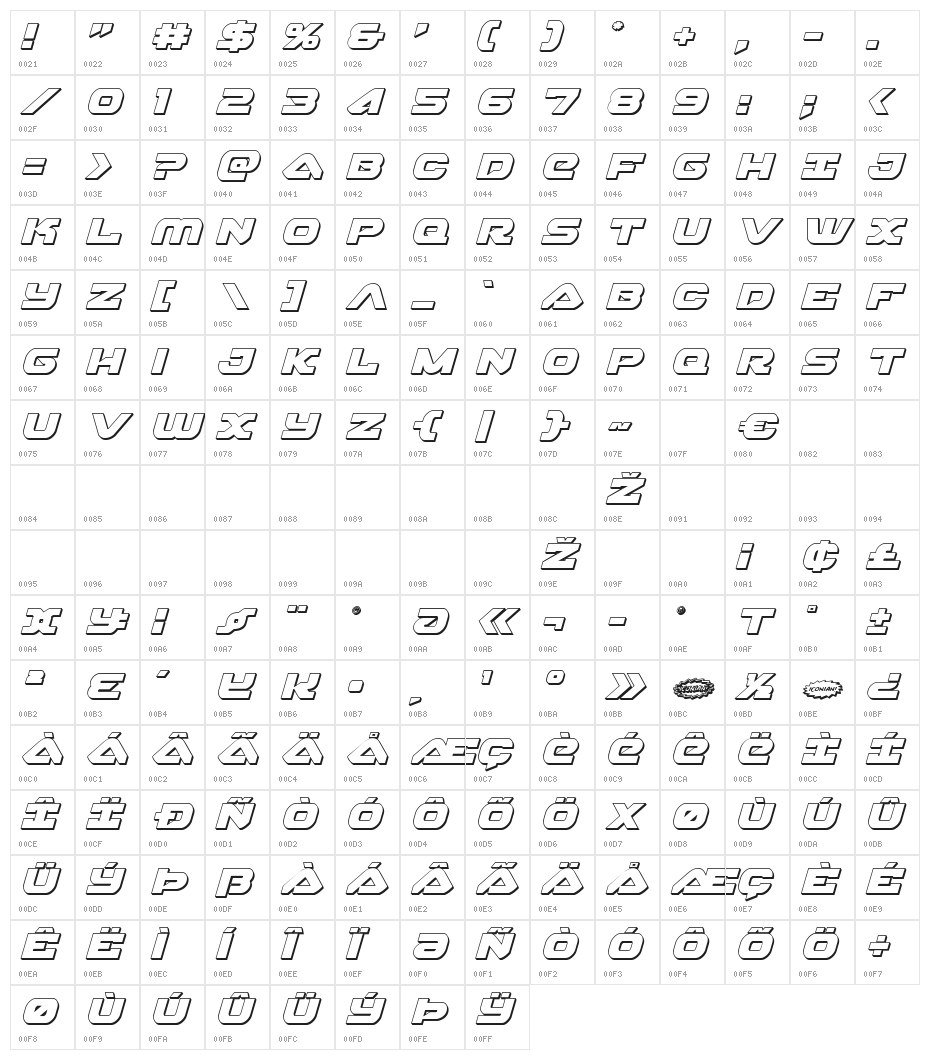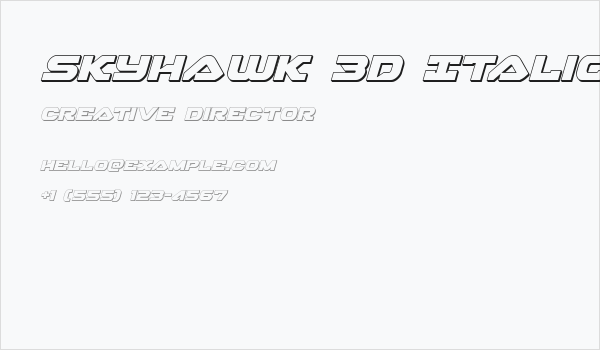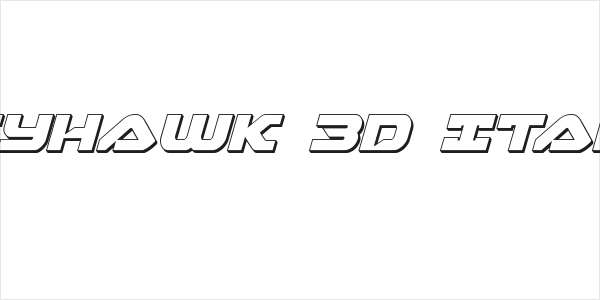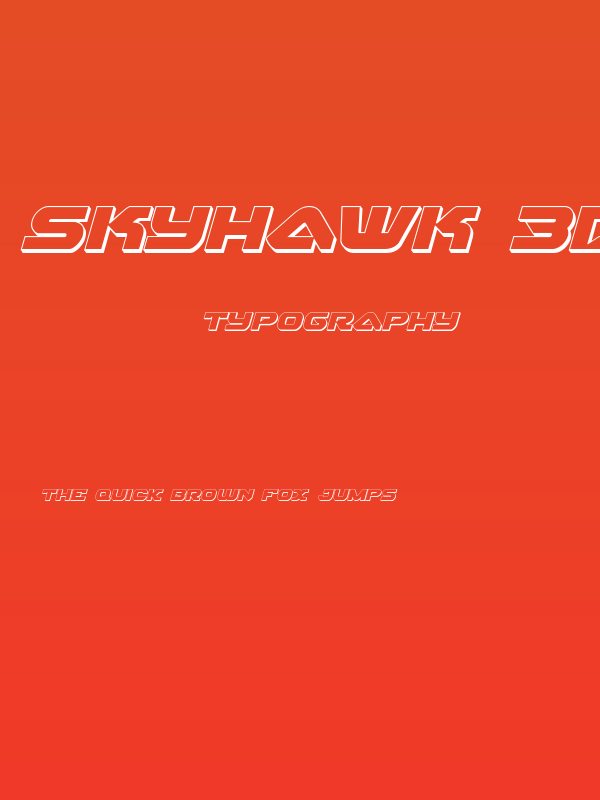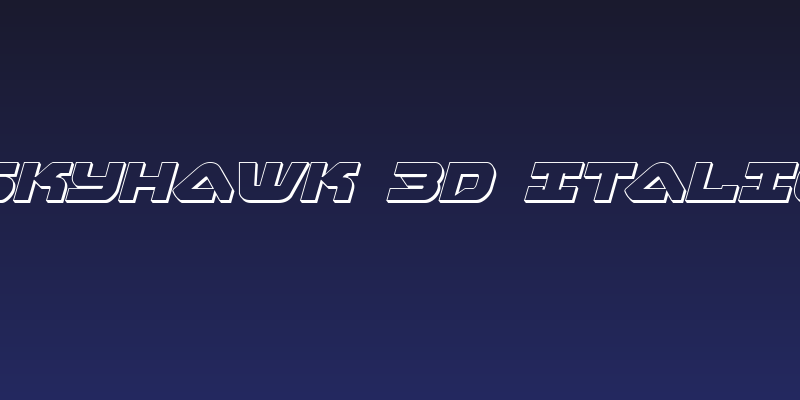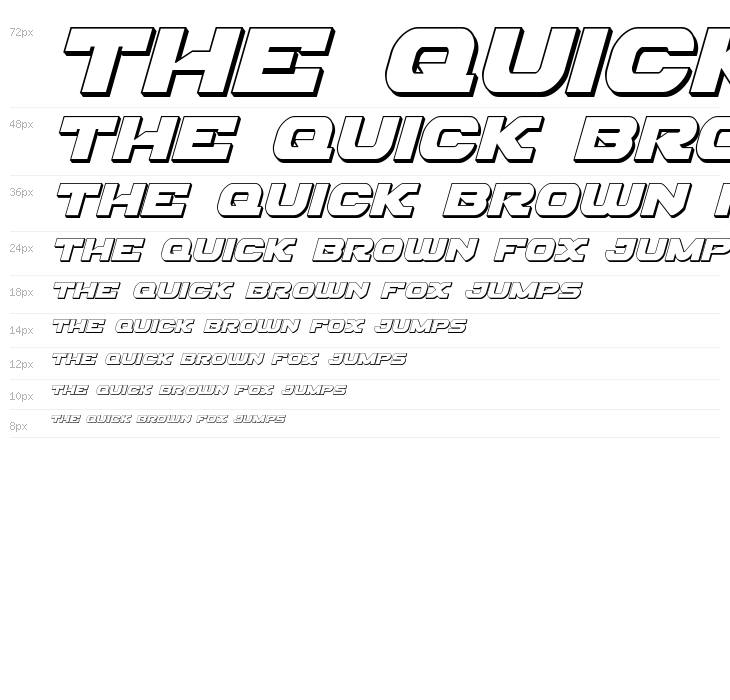
Skyhawk 3D Italic Font
Skyhawk 3D Italic Description
This font features a bold, three-dimensional design with a distinct italic slant, giving it a dynamic and futuristic appearance. The characters are outlined, creating a layered effect that enhances the 3D illusion. The uppercase and lowercase letters maintain a consistent style, with sharp angles and clean lines that convey a sense of speed and modernity. The numerals and special characters follow the same design principles, ensuring uniformity across all glyphs. This font's unique style makes it stand out, suitable for projects that require a bold and eye-catching typeface.
| Proposed Projects | Ideal for sci-fi themed designs, video game titles, tech branding, and futuristic posters. |